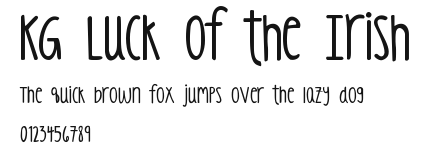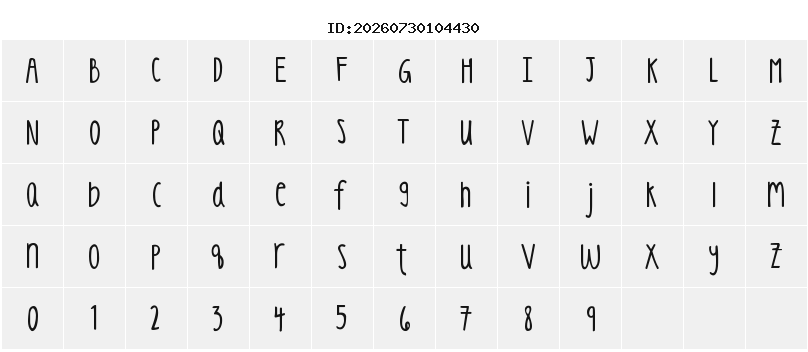
KG Luck of the Irish Preview
• Font Name: KG Luck of the Irish
• Font ID: KimberlyGeswein: KG Luck of the Irish: 2011
• Full Font Name: KG Luck of the Irish
• PostScript Name: KGLuckoftheIrish
• Designer: Kimberly Geswein
• Manufacturer: Kimberly Geswein
About KG Luck of the Irish.ttf
KG Luck of the Irish.ttf is a modern, elegant sans-serif font designed for ultimate readability and visual harmony. Perfect for branding, headlines, web design, and print materials.